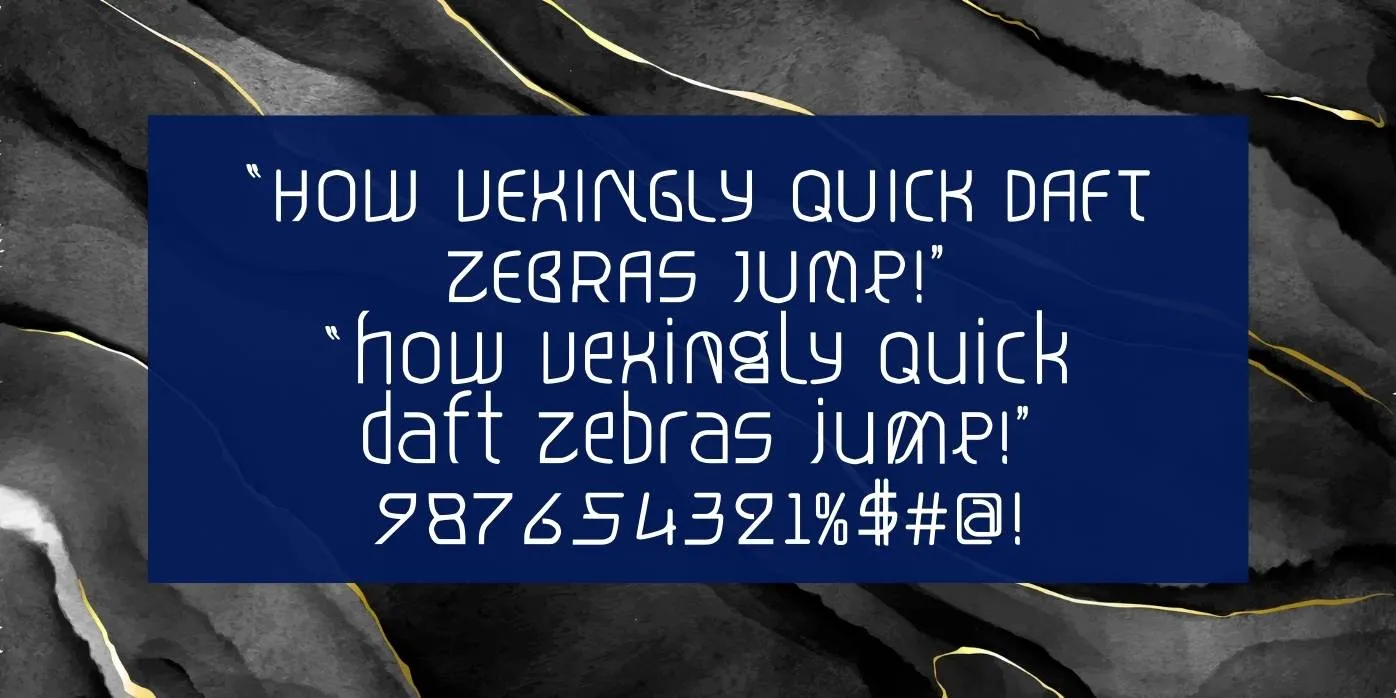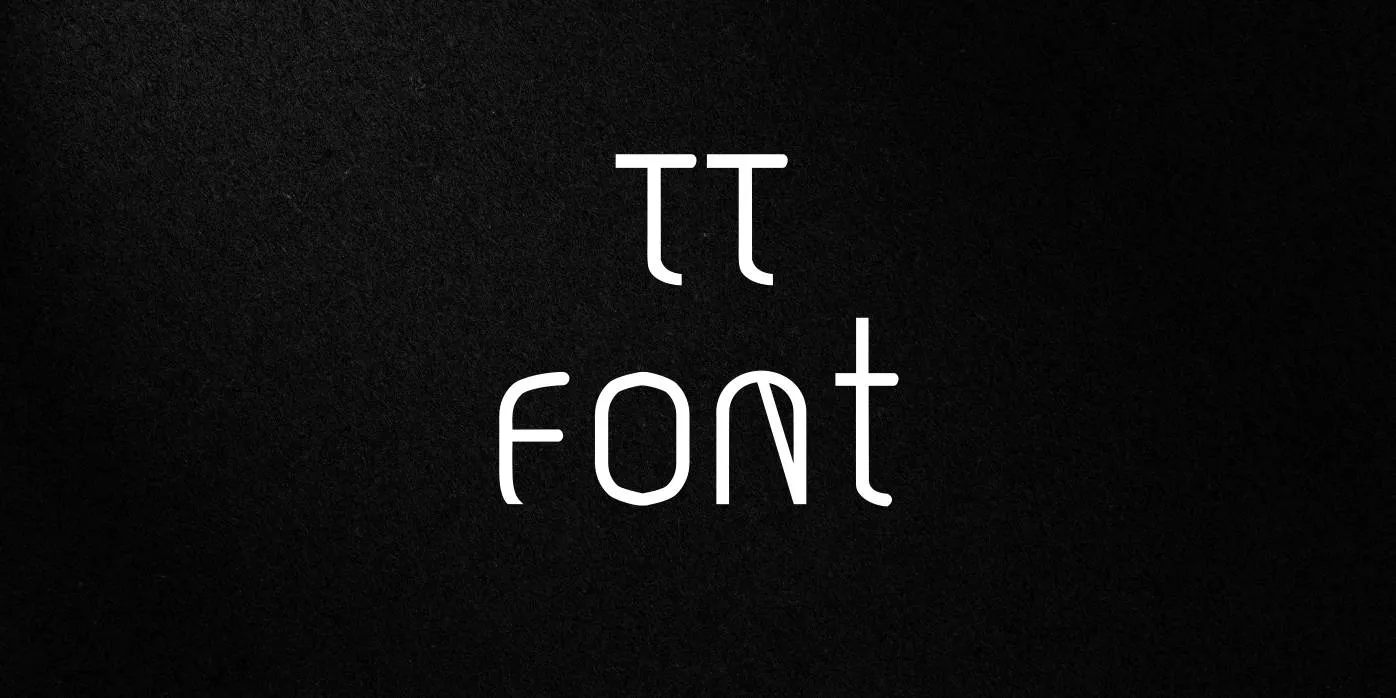
TT Font
TT Font is a sans-serif typeface that was designed by Tom Tor. This font is widely used because it can be read by computers and printers. However, they cannot be read by people who do not have access to a computer or printer. This Font was developed in the early 1990s by Microsoft and Apple.